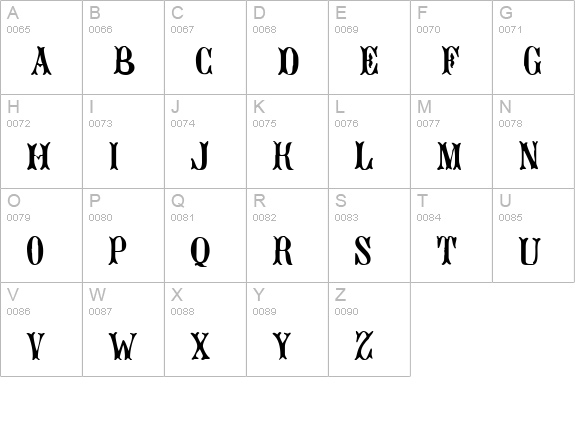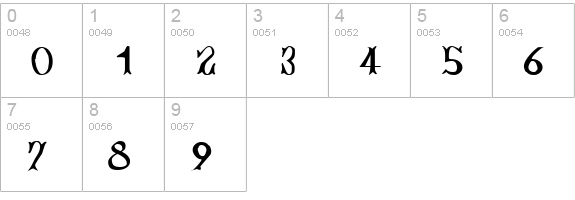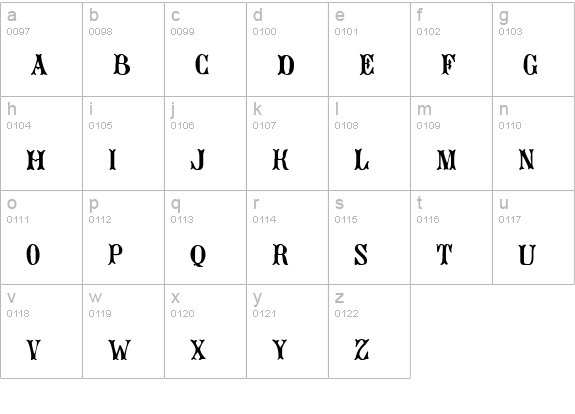
JacquesRoughcut Regular is the standard, neutral variant in the JacquesRoughcut typeface family \xE2\x80\x94 well suited to general body text, paragraphs, and standard typographic work.
JacquesRoughcut Regular font is a stunning display typeface that exudes a sense of rugged elegance and timeless charm. With its bold, chiseled letterforms and perfectly balanced proportions, this font is sure to make a statement in any design project. What makes JacquesRoughcut Regular font even more appealing is that it is available for free download at FontsMarket.com. Yes, you heard it right - this incredible font can be yours without spending a dime. Whether you're a professional designer looking to add a touch of sophistication to your work or an amateur enthusiast seeking to elevate your creative projects, JacquesRoughcut Regular font is the perfect choice. The intricate detailing and carefully crafted curves of JacquesRoughcut Regular font make it highly versatile and suitable for a wide range of applications. From posters, logos, and branding materials to headlines, titles, and editorial designs, this font will effortlessly capture attention and leave a lasting impression. The uniqueness of JacquesRoughcut Regular font lies in its ability to strike a perfect balance between ruggedness and refinement. It combines the raw energy of hand-drawn lettering with the precision of digital design, resulting in a font that is both visually striking and legible even at smaller sizes. Don't miss the opportunity to enhance your design projects with JacquesRoughcut Regular font. Head over to FontsMarket.com and download this remarkable typeface for free. Discover the endless possibilities and creative freedom that this font brings to your work. Embrace the power of JacquesRoughcut Regular font to make your designs stand out and captivate audiences like never before.